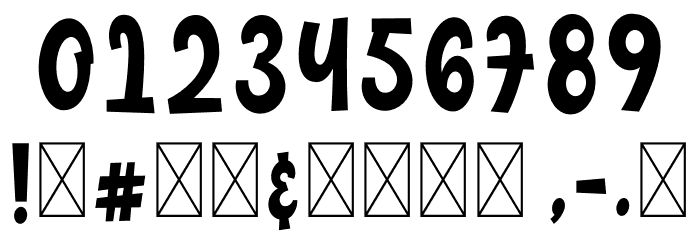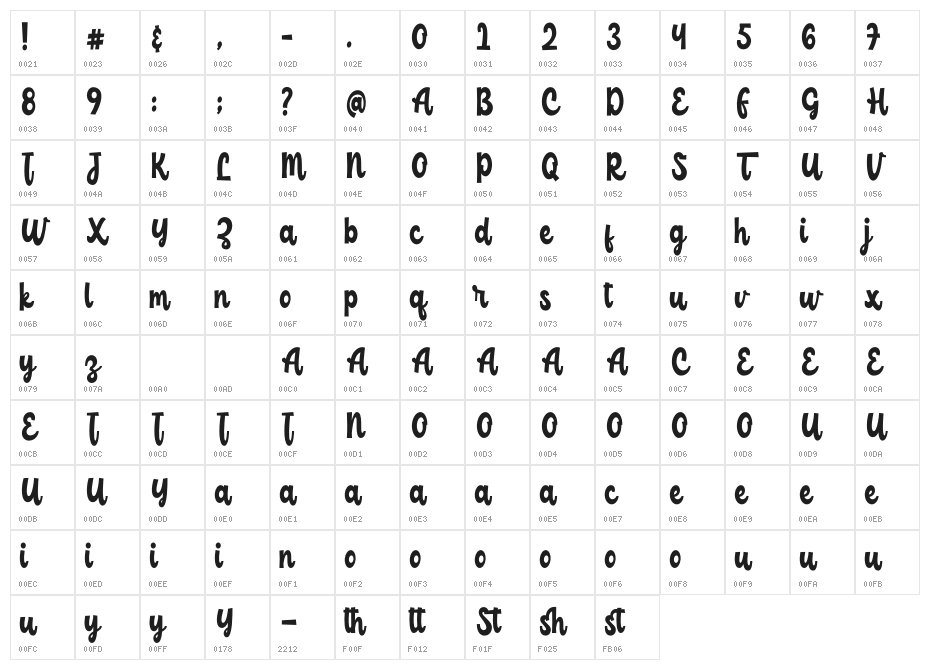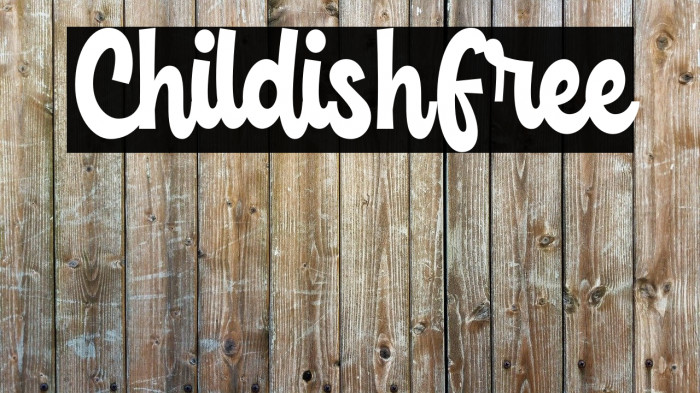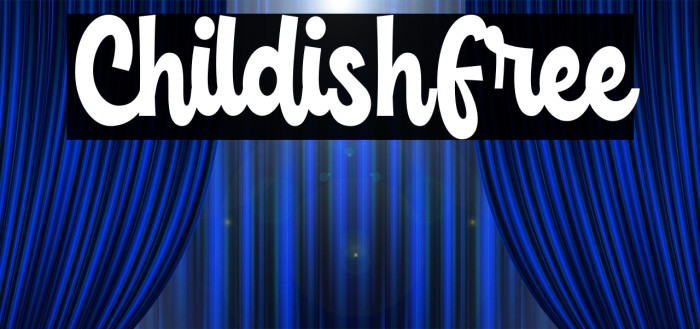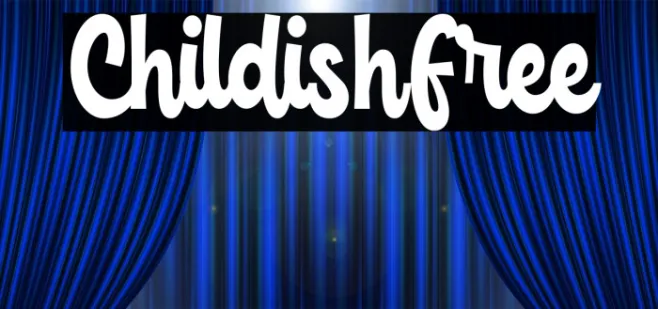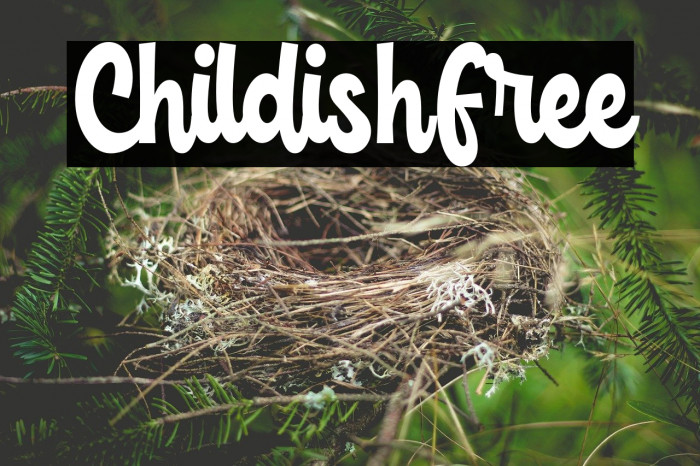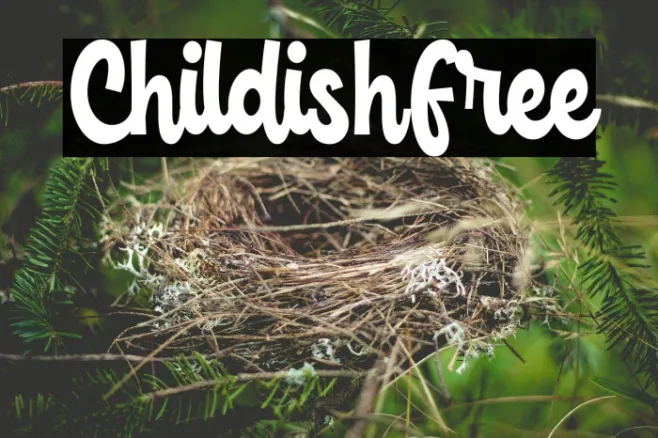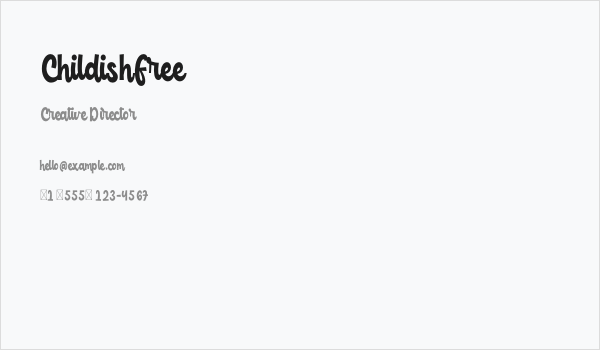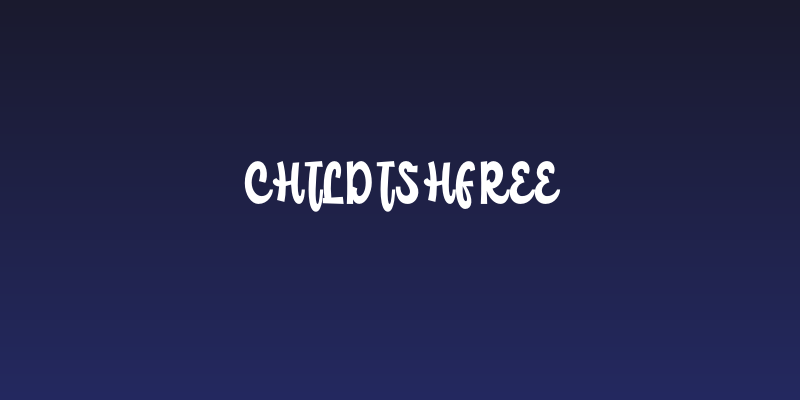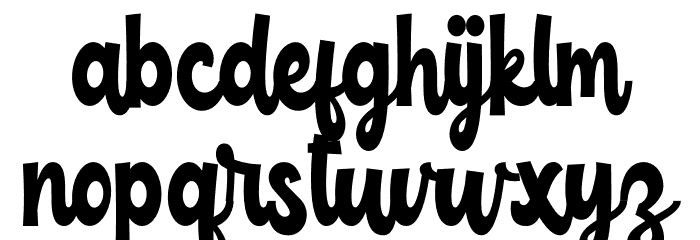
ChildishFree Font
ChildishFree Description
This playful and whimsical font features bold, rounded characters with a hand-drawn feel. The uppercase letters are tall and slightly narrow, while the lowercase letters have a more relaxed, flowing style. The font includes a full set of numerals and a selection of special characters, each maintaining the same playful aesthetic. The strokes are consistent in thickness, providing a uniform appearance across all characters. The overall design is reminiscent of children's handwriting, making it ideal for projects that require a fun and informal touch.